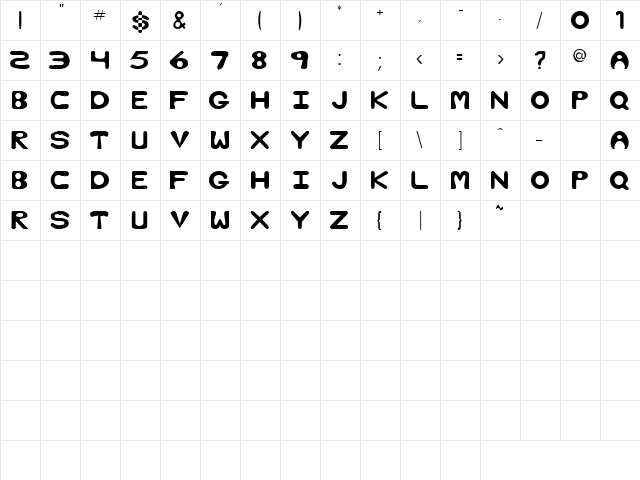
Dog's Reason 5 Regular Font Preview
Dog's Reason 5 Regular
Dog's Reason 5 Regular Font Details
Design Context for Dog's Reason 5 Typeface
Dog's Reason 5 is a composed and adaptable typeface that performs quietly and consistently across a wide range of design contexts.